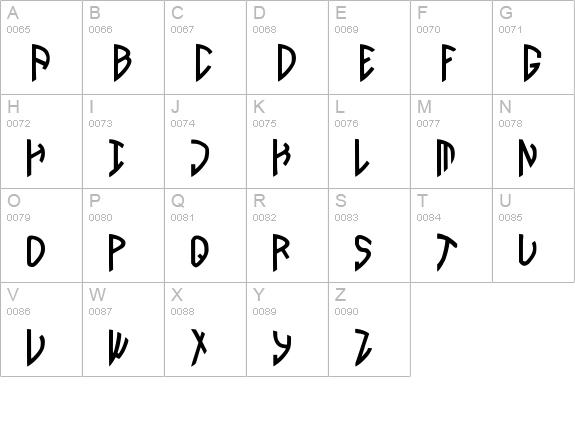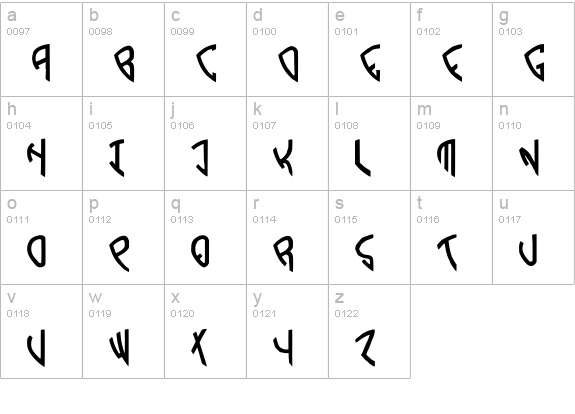
Warner Bros 1982 font is a timeless and iconic typeface that captures the essence of classic cinema and entertainment. With its bold and dynamic letterforms, this font exudes a sense of nostalgia and Hollywood glamour. Whether you're creating movie posters, title sequences, or branding materials, Warner Bros 1982 font will add a touch of cinematic flair to your designs.